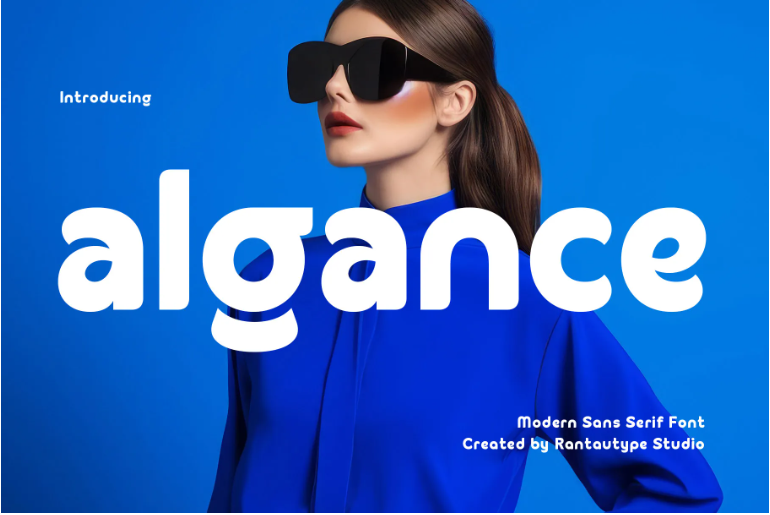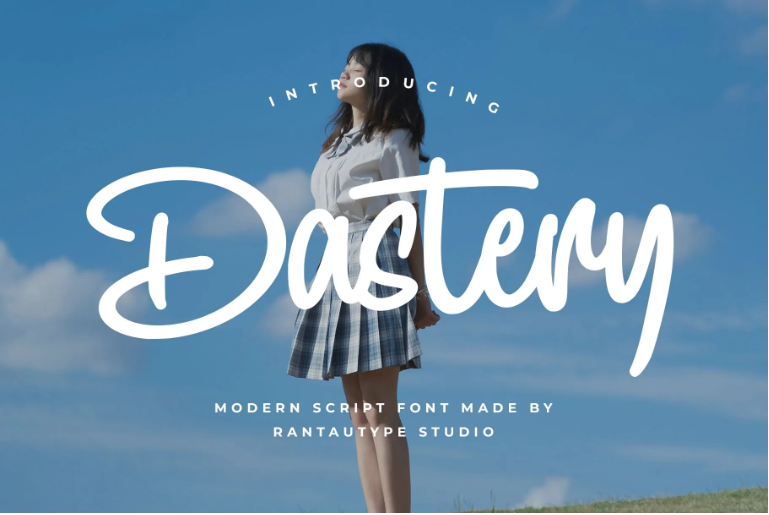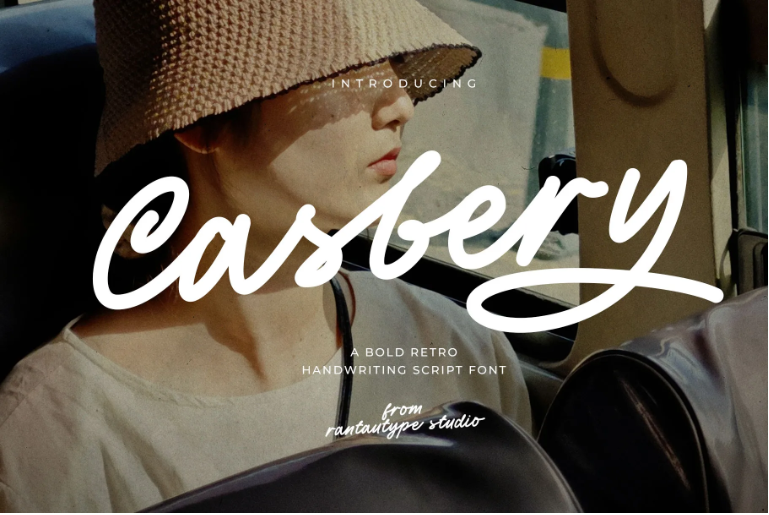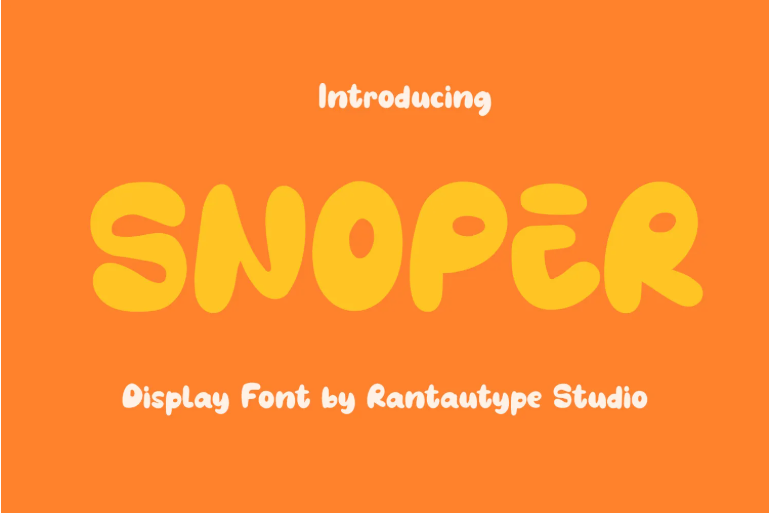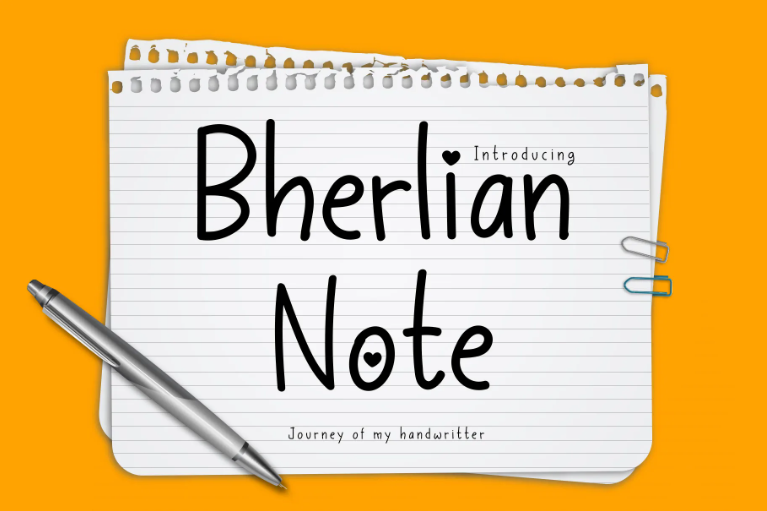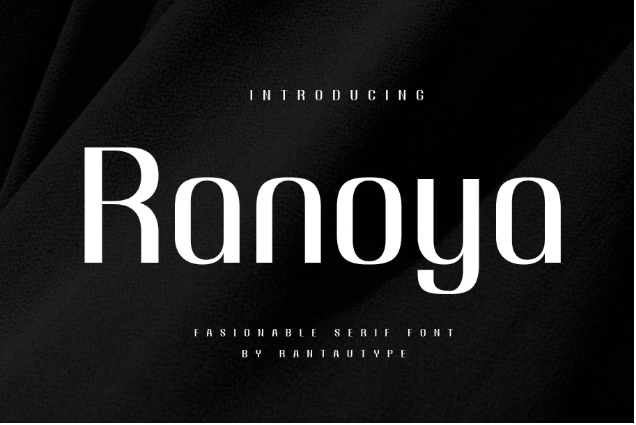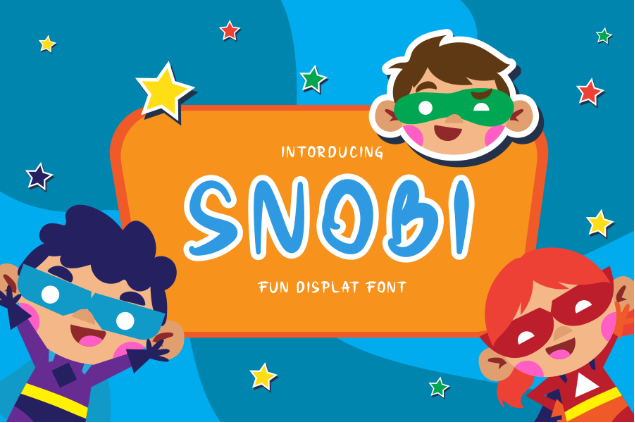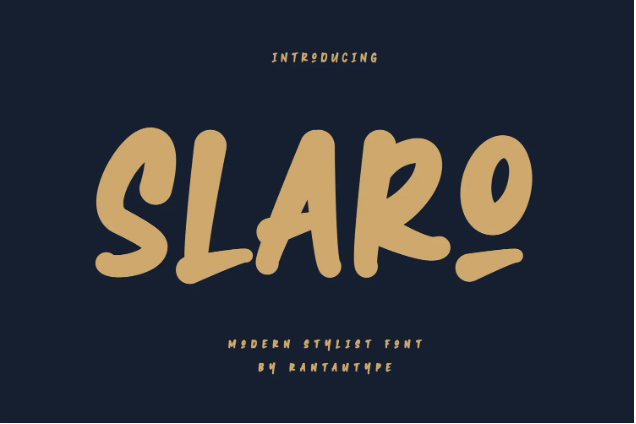
Finding the right font for fun and creative designs can help set the overall tone. You might think, “Fonts similar to Comic Sans are perfect for this concept.” You’re right! But, we’ll use the familiar Comic Sans as a guide and sprinkle our own finesse. Let’s meet our Comic Sans alternatives!
Vincent Connare designed the popular Comic Sans in 1994 for Microsoft. It was intended for software with comic-style speech bubbles.
The detailed characteristics are as follows: the font has a casual handwritten style, rounded letterforms, irregular proportions, and obviously, sans-serif design. With that style, it radiates a cheerful and lighthearted nature. Hence, it has become the popular choice for informal designs.
What font is similar to Comic Sans? Well, these fonts offer the same cheerful and approachable vibe as Comic Sans, with a fresh twist that keeps your designs unique and engaging.
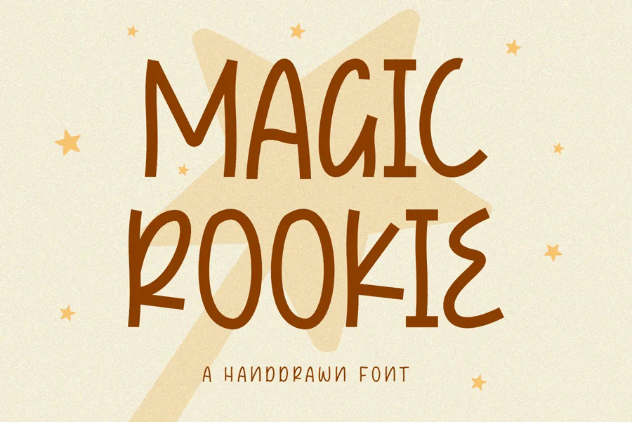
With the same playful and fun look, Magic Rookie has a distinct feature from Comic Sans. This font opts for a display look with clean cuts at the end of each stroke rather than rounded.
Ranoya offers a versatile option as a Comic Sans alternative. The font has peculiarly funny lowercase letters with a classy and fashionable uppercase. The font also has elegant, clean cuts for a clean look.
With its casual handwritten style, Obsesi is clearly inspired by Comic Sans. But Obsesi feels more natural, the font isn’t that clean, and often shows imperfection that makes it appear genuine.
Ever wonder what a chubby Comic Sans would look like? Well, here’s Perfect Smile. This font serves the same playful and casual look, with much more oomph. The thick, marker typeface can make your design merrier.
Snobi is more childish than the regular Comic Sans. You can tell by looking at each careless stroke. The inconsistency indicates that it was made to mimic kid’s writing.
There is no more suitable term than a fun font when describing Rainbow Land. the font has great legibility, a cheerful vibe, and a combo–there’s a regular and shadowed version.
Muntea poured out all the brilliant ideas based on the Comic Sans. The font appears to have neat cuts, simpler letterforms, and stylish ligatures.
Slaro tapped into the masculine side of fonts similar to Comic Sans. Unlike Comic Sans, Slaro uses brush strokes, resulting in uneven first and last touches.
A wild take on the monoline sans font can be seen in Bepory. The font boasts its flowy alternates, but when you use the regular style it has a rounded base and neater cuts than Comic Sans.
Stepping off from the classic Comic Sans, Algance pours in a more futuristic touch to it. While still in the realm of fun and rounded letterforms, this font ink cuts, clean lines, and a more digital look than handwritten.
Let’s take the rounded ends of the Comic Sans but write it in script style. Now, you’ve found Dastery. The font has a similar fun and playful touch but in script style.
When Comic Sans became a cool font, it turned into Style Rich. This font still retains the rounded ends, marker strokes, and irregular proportions, just taller and italic.
Among our fonts similar to Comic Sans, Casbery has the most similar characteristics, just its style script-based. Casbery is a versatile font, based on your overall aesthetics, it can be lux, vintage, and fresh.
The Comic Sans is a fun font, but what about a fat version of it? Here’s Snoper, a bubbly and chubby display font with the same playfulness. This eye-catching font excels particularly in culinary, summer, and fresh designs.
Gonce is a minimalist font with a modern and professional flair. Just like Comic Sans, this font utilizes round-based letterforms although Gonce adopts more geometric visuals.
The simple Bherlian Note has beyond the Comic Sans’s charm. The font feels like it has personality, a calming typeface, and a sincere touch. It is basically Comic Sans, just written by different people.
While Comic Sans is certainly one of the most polarizing fonts in design history, it undeniably serves its purpose in adding casual touch and approachability to various projects. When the time comes for you to find similar fonts to Comic Sans, remember these 15+ fonts.